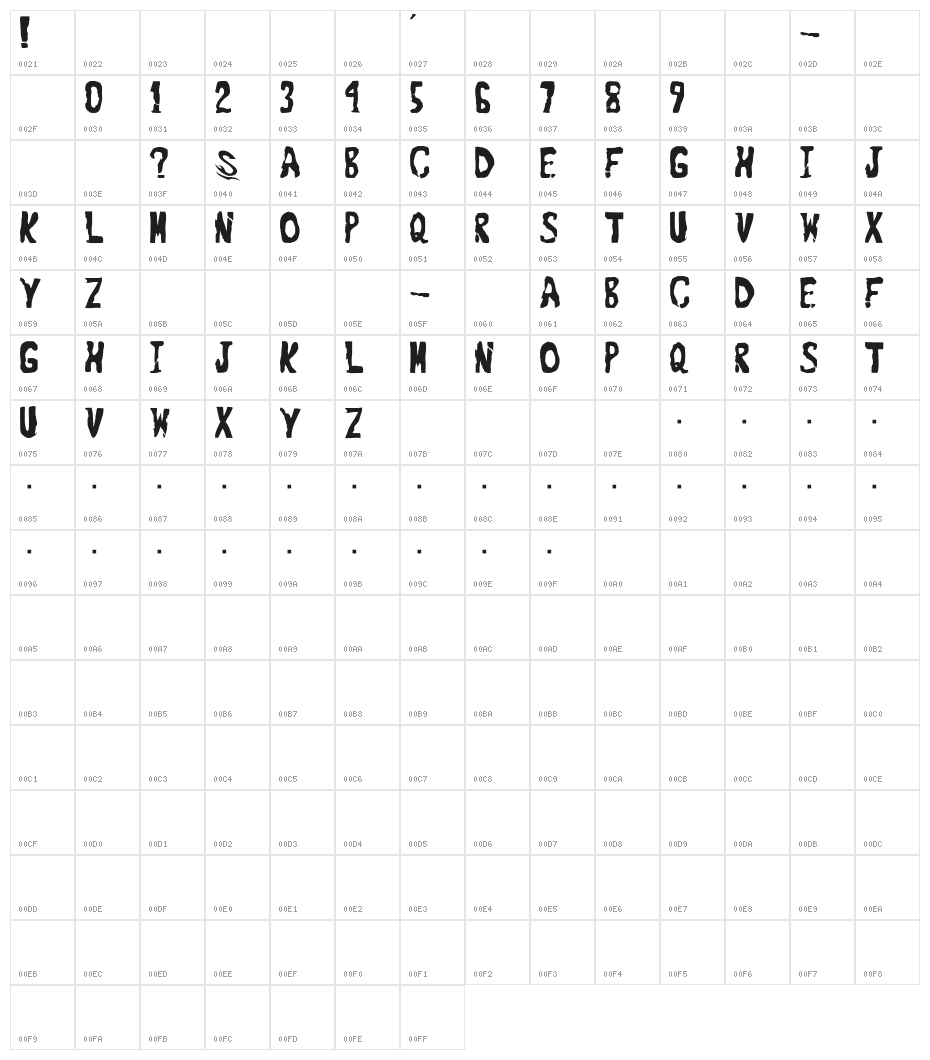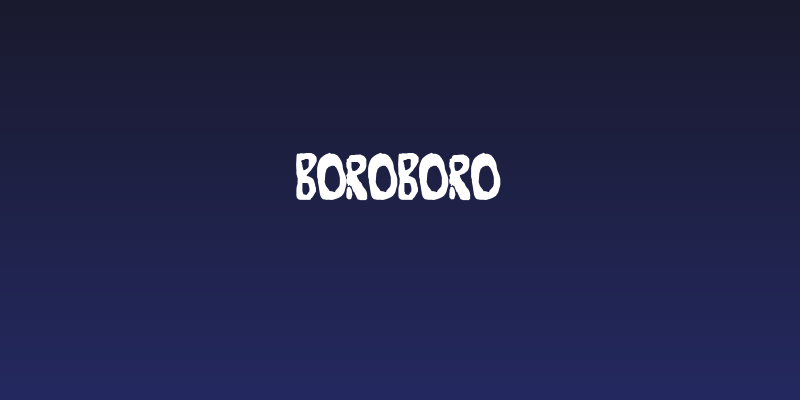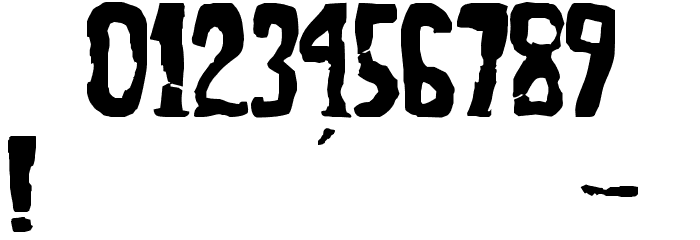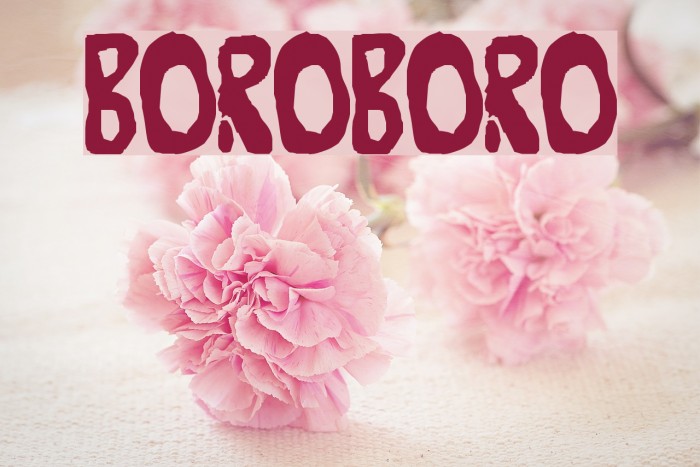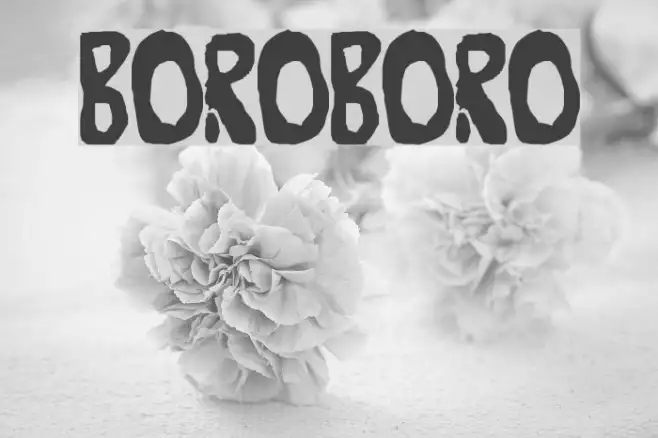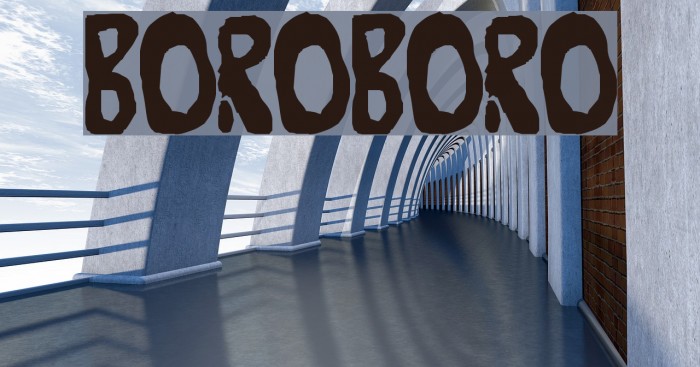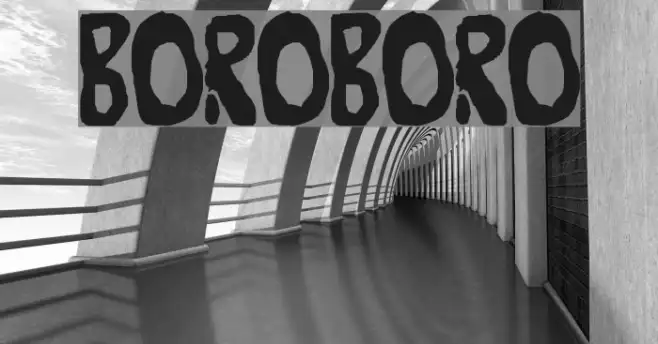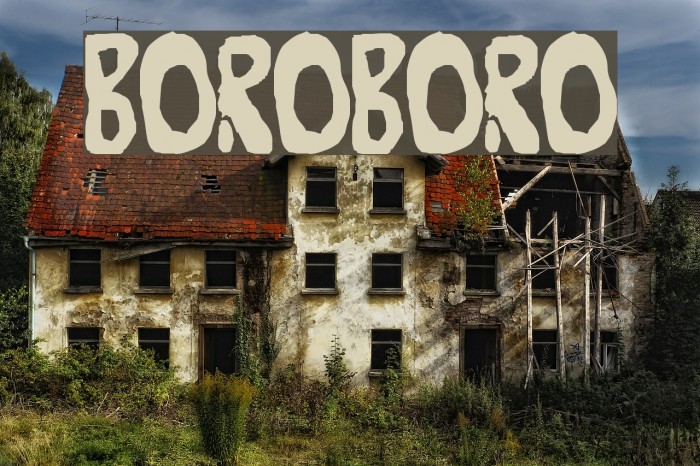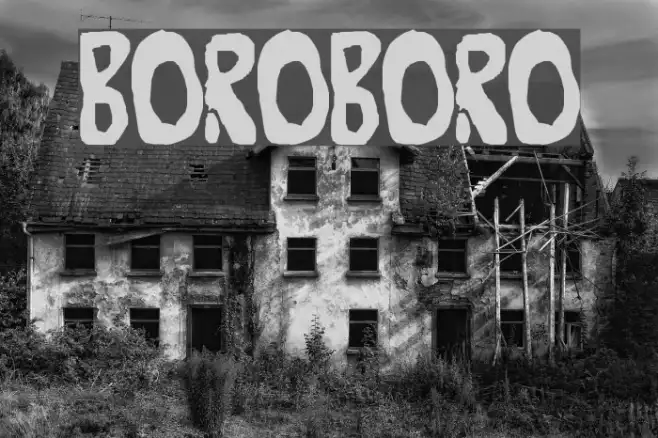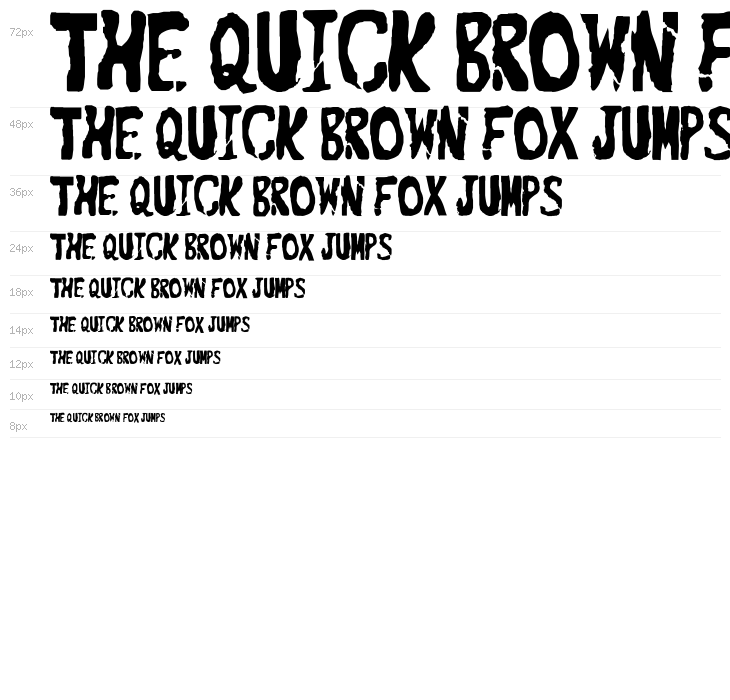
Boroboro Font
Boroboro Description
This font exhibits a distressed and grungy style, characterized by irregular edges and a hand-painted appearance. The letters are bold and have a rugged texture, giving them a worn and weathered look. The uppercase and lowercase letters maintain a consistent style, with the numbers and special characters following suit. The font's unique aesthetic makes it stand out, ideal for projects that require a raw and edgy feel. Its uneven strokes and rough finish contribute to its distinctive personality, making it suitable for artistic and unconventional designs.
| Overall Style | Grunge, Artistic |
| Use Case | Headlines, Logos, Artistic projects |
| Proposed Projects | Ideal for album covers, posters, street art, and edgy branding projects. |